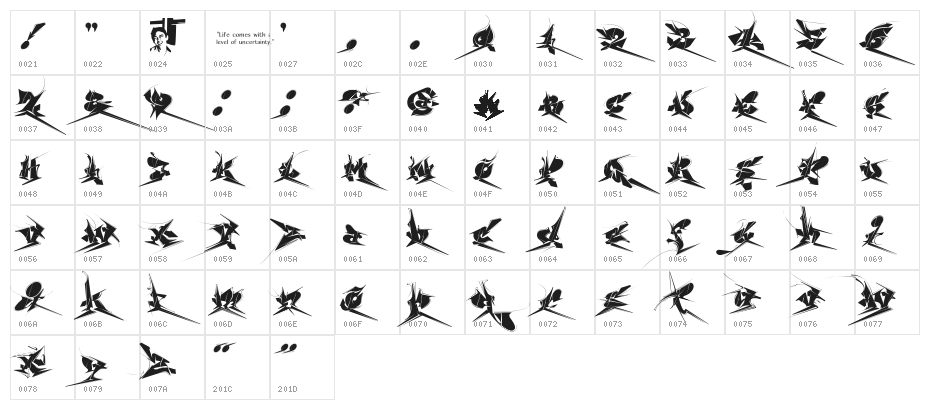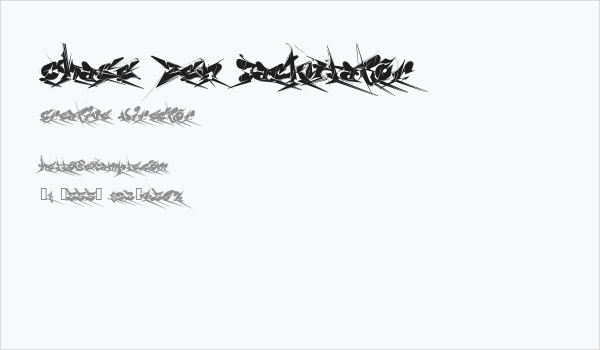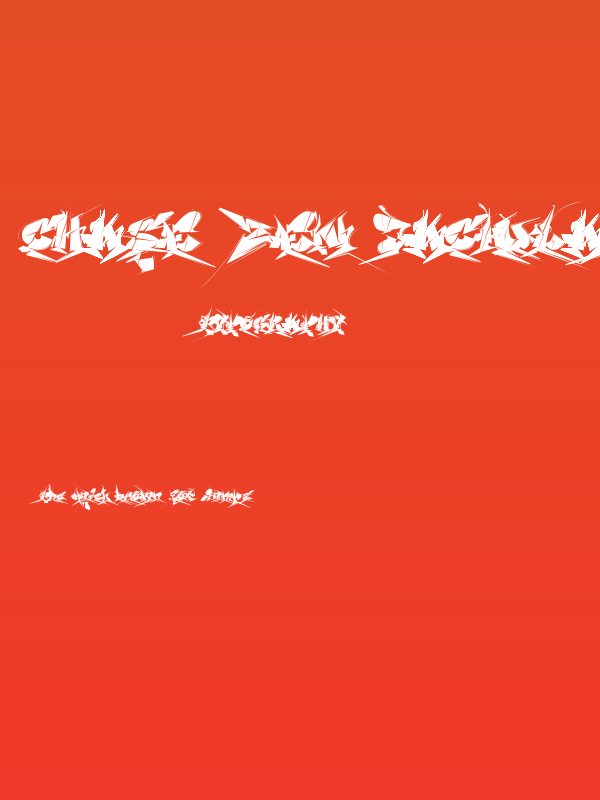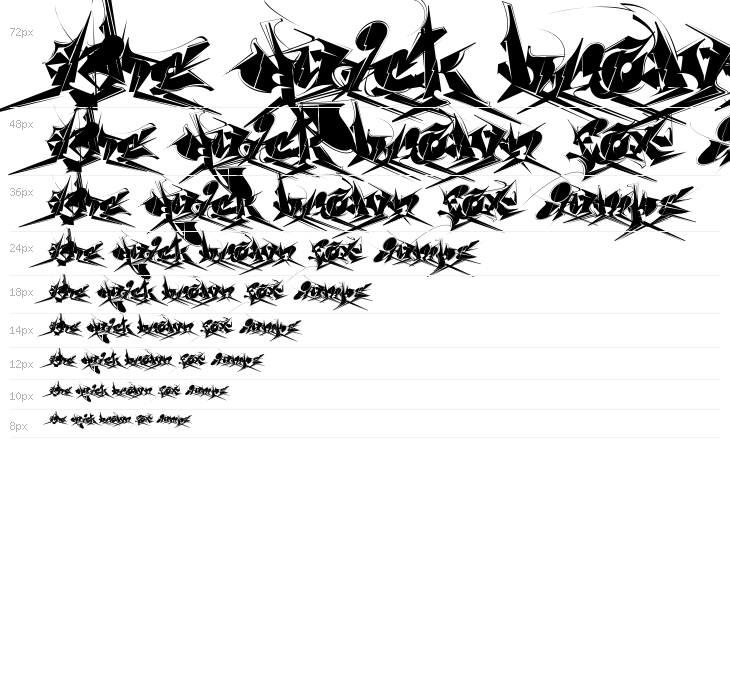
Chase Zen Jackulator Font
Chase Zen Jackulator Description
This font is a striking example of urban graffiti style, characterized by its sharp, angular lines and dynamic, energetic forms. The letters are highly stylized, with exaggerated strokes and intricate details that give them a sense of movement and intensity. The uppercase and lowercase letters maintain a consistent aesthetic, with each character appearing as if it has been meticulously crafted with a spray can. The numbers and special characters follow the same bold and expressive design, making the font suitable for projects that require a strong visual impact. The overall appearance is edgy and rebellious, perfect for capturing the essence of street art.
| Overall Style | Urban, Graffiti |
| Proposed Projects | Ideal for street art murals, urban-themed posters, album covers, and edgy branding projects. |